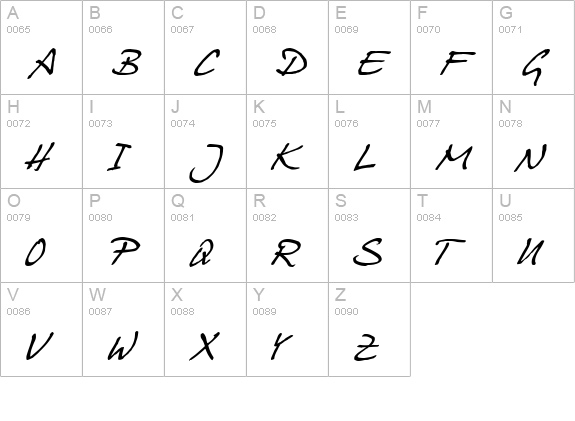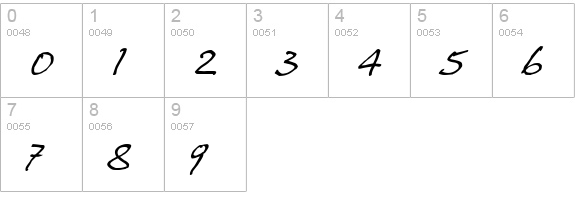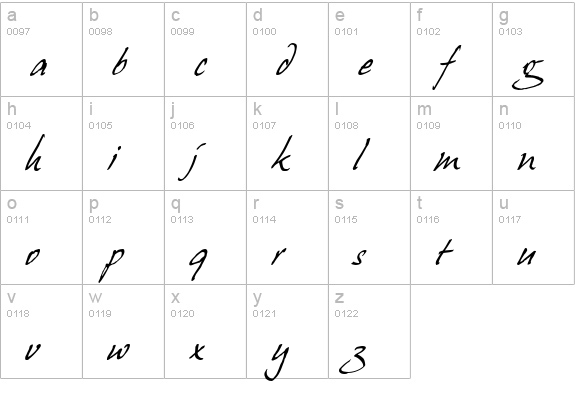
Juergen Italic is a distinctive, italic variant in the Juergen typeface family \xE2\x80\x94 well suited to design and typography projects.
Juergen Italic font is a sleek and modern typeface that exudes sophistication and elegance. Its slanted design adds a touch of flair to any project, making it ideal for headings, quotes, and other attention-grabbing text. With its clean lines and balanced proportions, Juergen Italic font strikes the perfect balance between professionalism and creativity. What's even better is that Juergen Italic font is available for free download at FontsMarket.com. This means you can easily add this stylish font to your design arsenal without breaking the bank. Whether you're working on a website, branding materials, or any other creative project, Juergen Italic font is sure to elevate your work with its unique charm and versatility. Download it today and see the difference it can make in your designs!